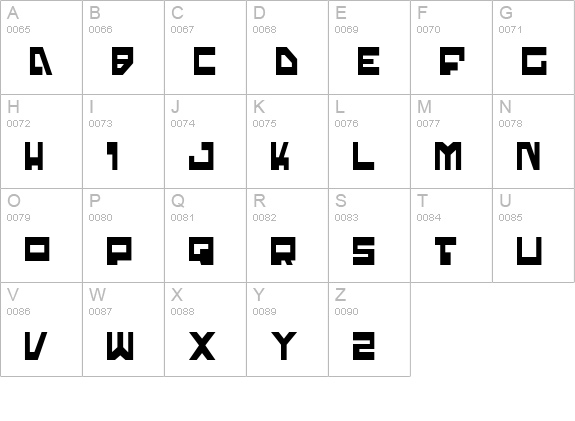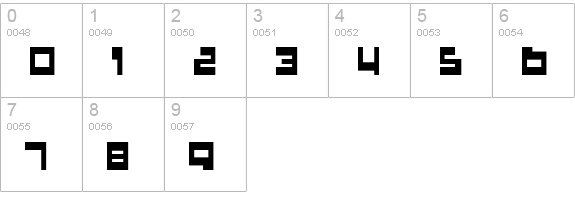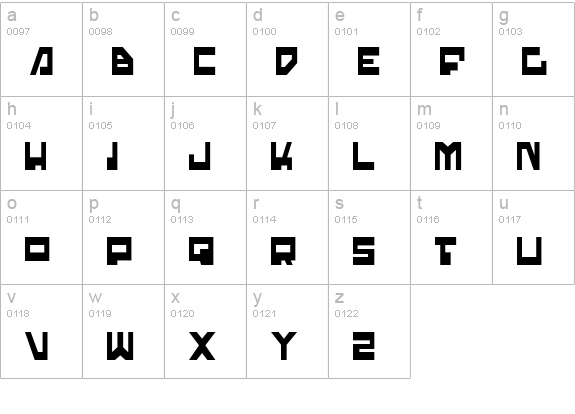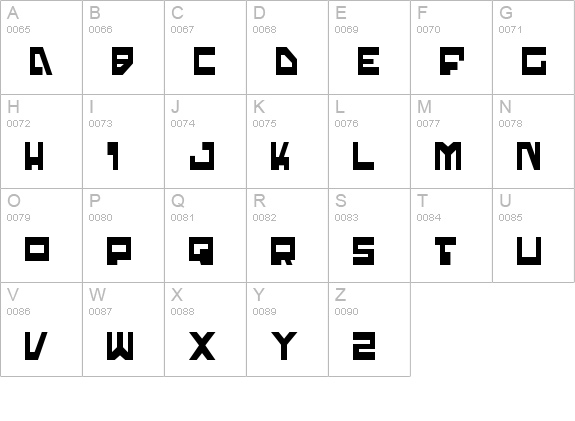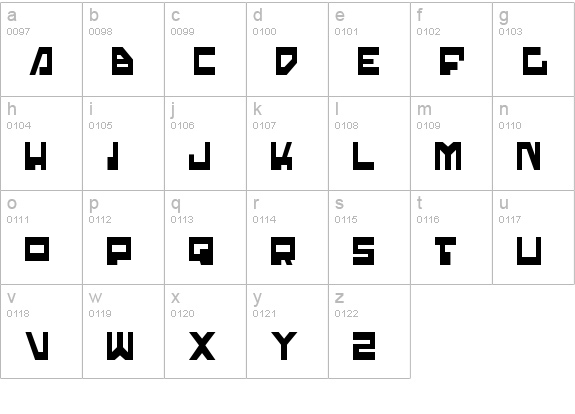
Trajia Condensed is a distinctive, condensed-width variant in the Trajia typeface family \xE2\x80\x94 well suited to design and typography projects.
Trajia Condensed font is a modern and elegant typeface that exudes sophistication and style. With its sleek and streamlined design, this font is perfect for adding a touch of class to any project. The condensed style of Trajia makes it ideal for headlines, titles, and other display purposes where space is limited but impact is crucial. This versatile font features clean lines and sharp angles, giving it a contemporary and polished look. Its readability and distinctiveness make it a great choice for branding, advertising, and editorial design. Best of all, Trajia Condensed font is available for free download at FontsMarket.com. So go ahead and enhance your designs with this beautiful and professional typeface today!